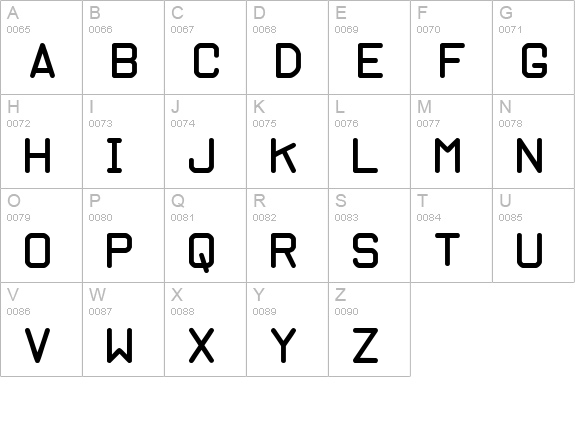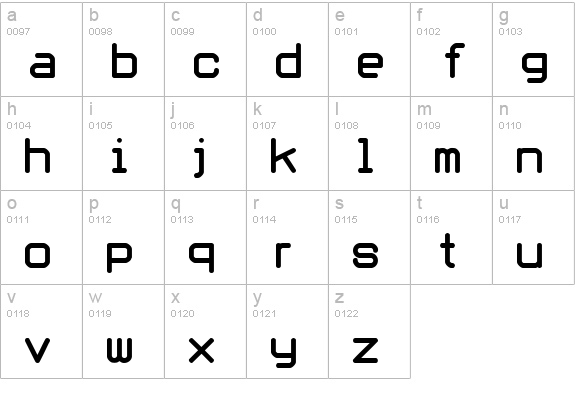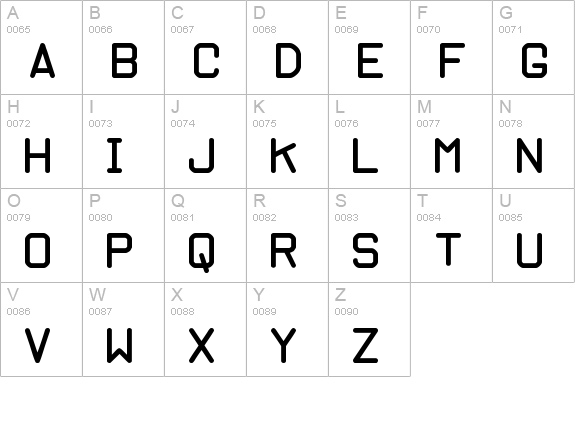
Oblivious font Font Details
Introducing Oblivious font, a stunning and versatile typeface that is perfect for a wide range of design projects. This unique font features a modern and stylish design with a touch of elegance, making it ideal for branding, posters, invitations, and more. The sleek lines and distinctive curves of Oblivious font will add a touch of sophistication to any project. What makes Oblivious font even more appealing is that it is available for free download at FontsMarket.com. Yes, you read that right - this amazing font can be yours at no cost, allowing you to add a touch of class to your designs without breaking the bank. So why wait? Head over to FontsMarket.com now and download Oblivious font to take your projects to the next level.